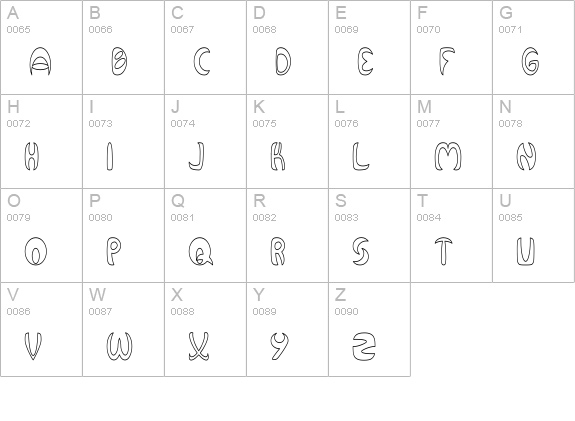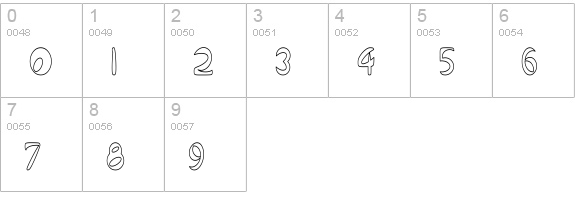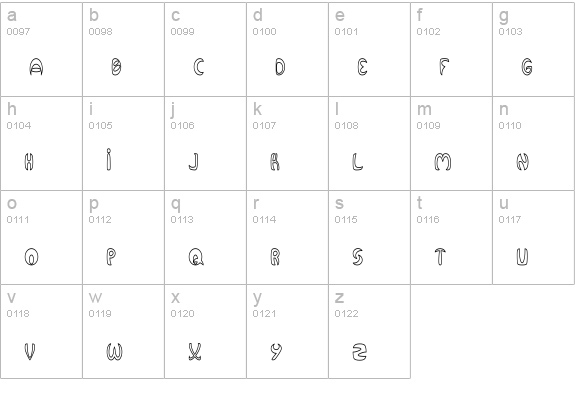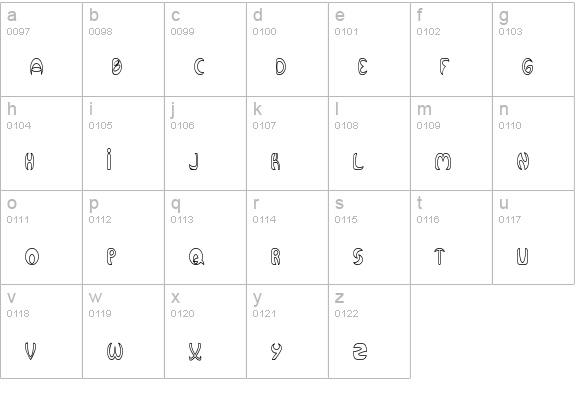
Qurve Hollow Thin is a delicate, low-contrast variant in the Qurve typeface family \xE2\x80\x94 well suited to fashion editorial, minimal branding, and high-contrast display.
Qurve Hollow Thin is a captivating and modern font that effortlessly combines elegance with a touch of playfulness. Its delicate curves and clean lines create a visually pleasing aesthetic that is perfect for various design projects. With its thin and hollow style, Qurve Hollow Thin adds a unique and distinctive element to any typography layout. This font is incredibly versatile and can be used for a wide range of applications, from branding and logo design to website headers and social media graphics. Its sleek and contemporary appearance makes it particularly suitable for fashion, beauty, and lifestyle industries, where it can effortlessly convey sophistication and style. Qurve Hollow Thin is not only visually appealing but also highly functional. It is legible even at small sizes, ensuring that your message is effectively communicated across different mediums. Whether it's a business card or a digital advertisement, this font will make your text stand out and leave a lasting impression on your audience. The best part is that Qurve Hollow Thin is available for free! You can easily download it at FontsMarket.com, a reputable platform that offers a vast selection of high-quality fonts. Whether you're a professional designer or a hobbyist, this free font allows you to elevate your creative projects without breaking the bank. Don't miss out on the opportunity to add Qurve Hollow Thin to your font collection. Its unique design, versatility, and the fact that it is freely available to download make it a must-have for any typography enthusiast or creative professional. So go ahead and unleash your creativity with Qurve Hollow Thin!